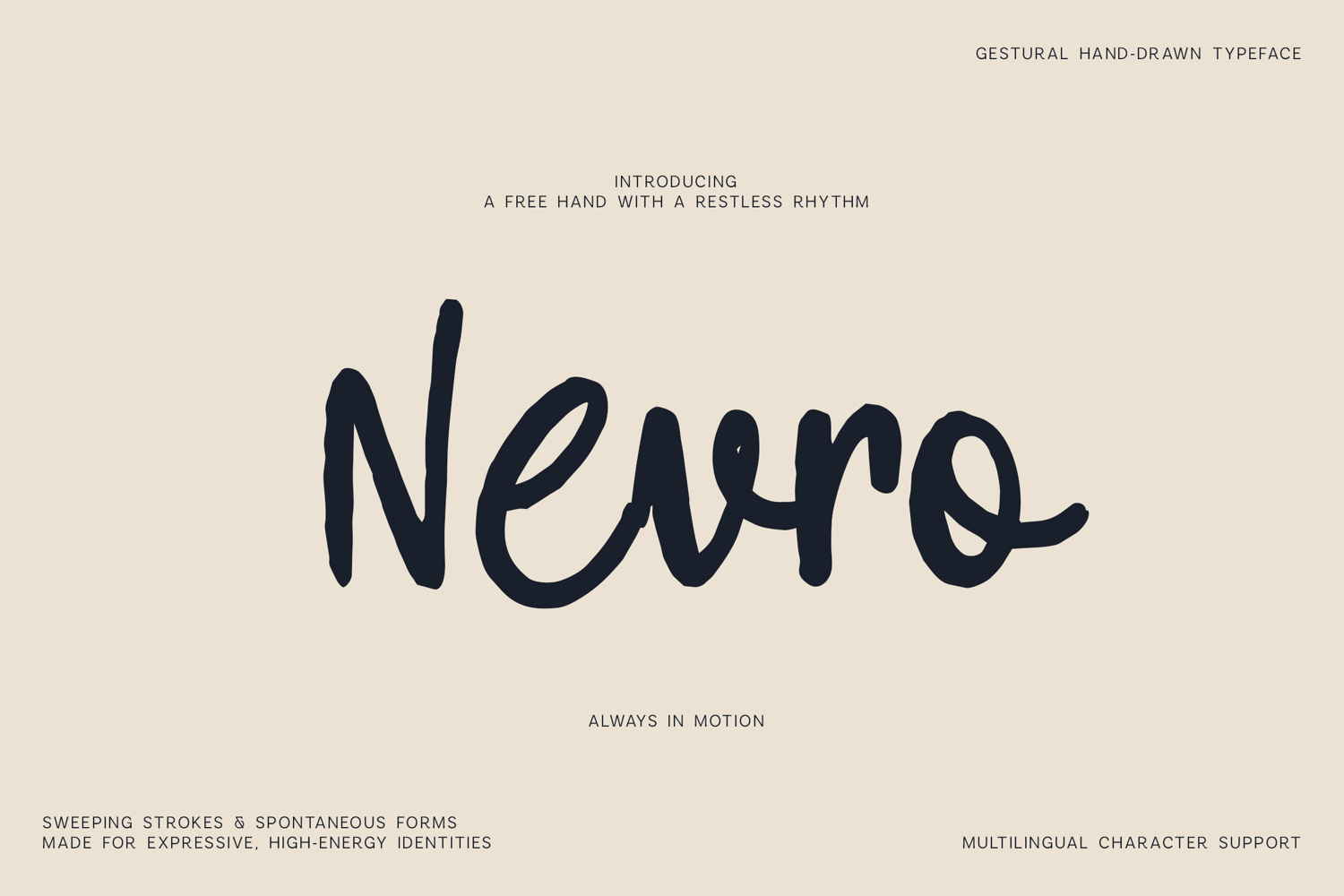
Nevra is a lively handwritten script typeface created with sweeping strokes, spontaneous details, and an energetic free-flowing rhythm. Its organic handmade character adds warmth, personality, and movement to any design.
Ideal for logos, branding, packaging, posters, labels, social media, apparel, invitations, editorial projects, book covers, quotes, and creative display typography.
Nevra is made for designs that need an expressive, relaxed, and unmistakably handmade voice.